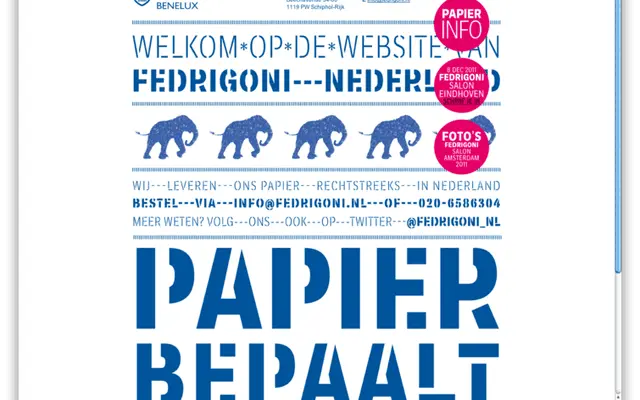
Plan Grotesque Condensed Stencil
Typotheque
Plan Grotesque Condensed Stencil specimen from Typotheque
A condensed stencil cut of Typotheque's Plan Grotesque, available in four weights with matching italics.
Part of the Plan Grotesque Stencil system, this condensed variant offers four weights from Light to Bold, each with an italic, suited to display and signage work where stencil construction is part of the visual language. The interrupted strokes give it an industrial, utilitarian quality that pairs with the tight proportions of the condensed width. City names are used as style identifiers across the stencil system.
A condensed stencil variant of a grotesque sans, classified as display due to its stencil construction which limits text use and foregrounds its decorative, industrial character.